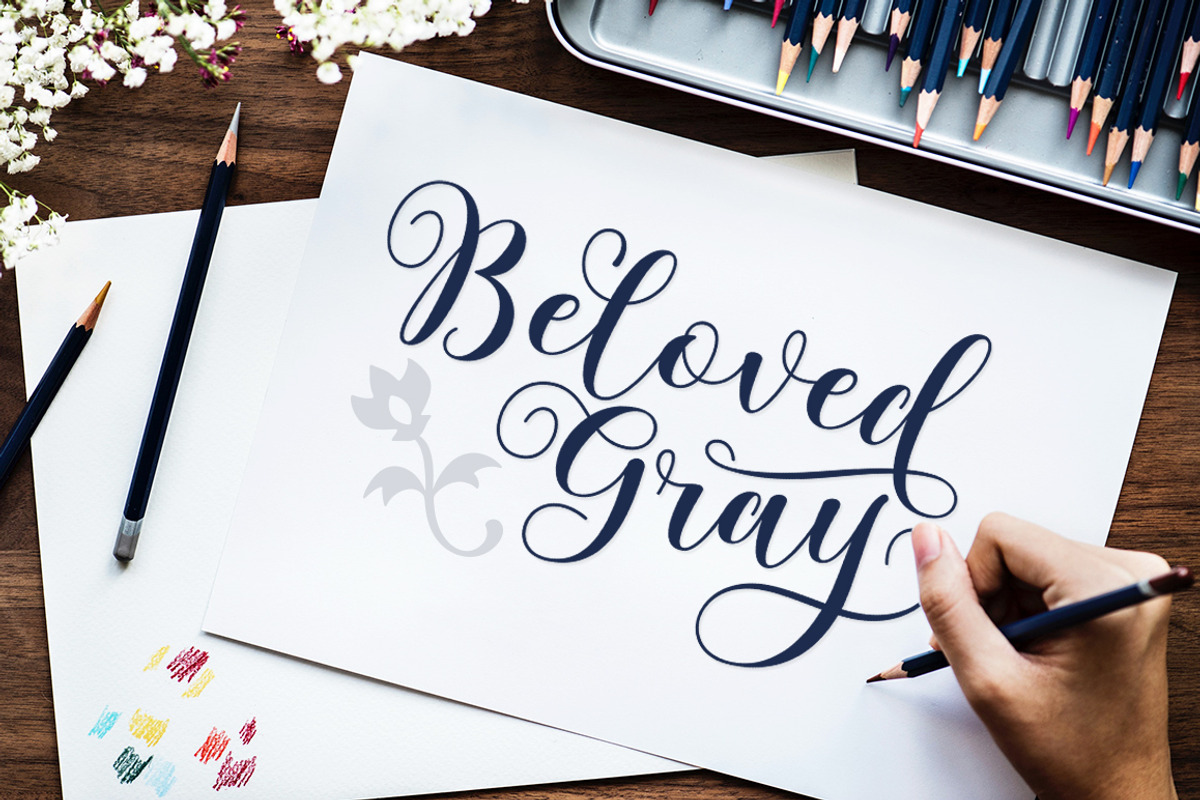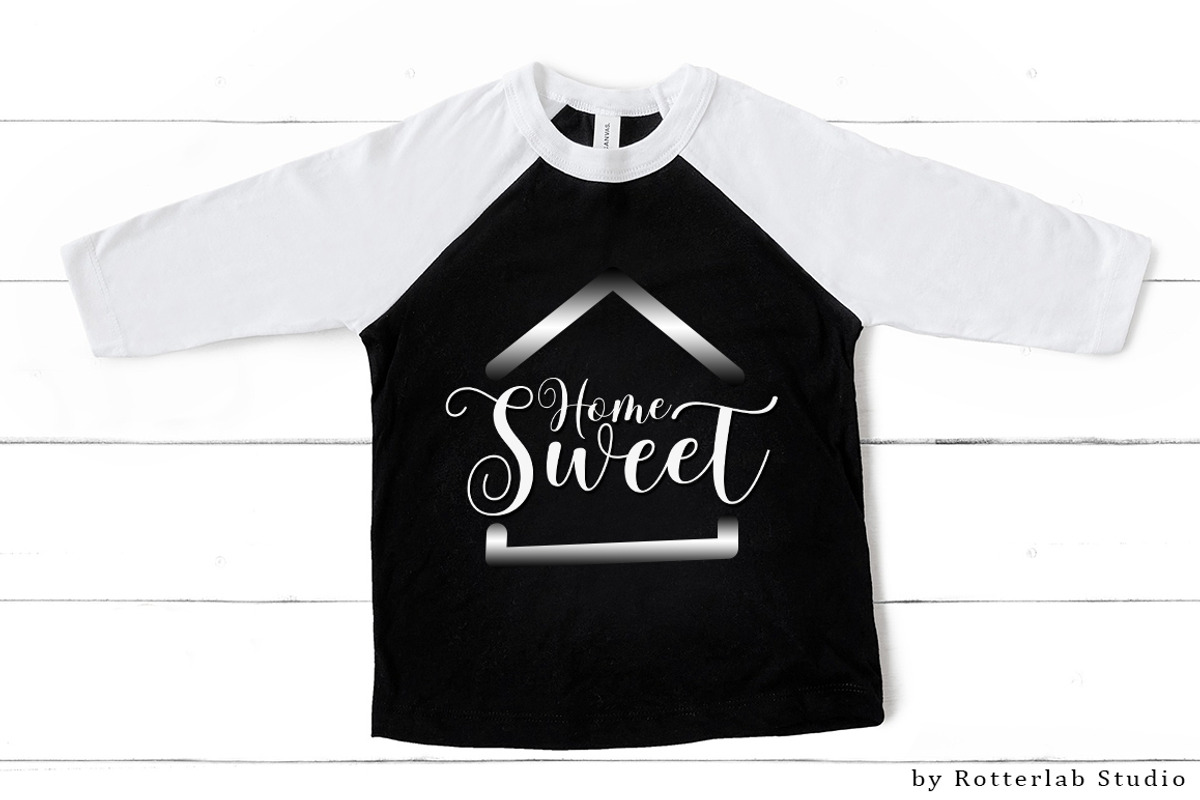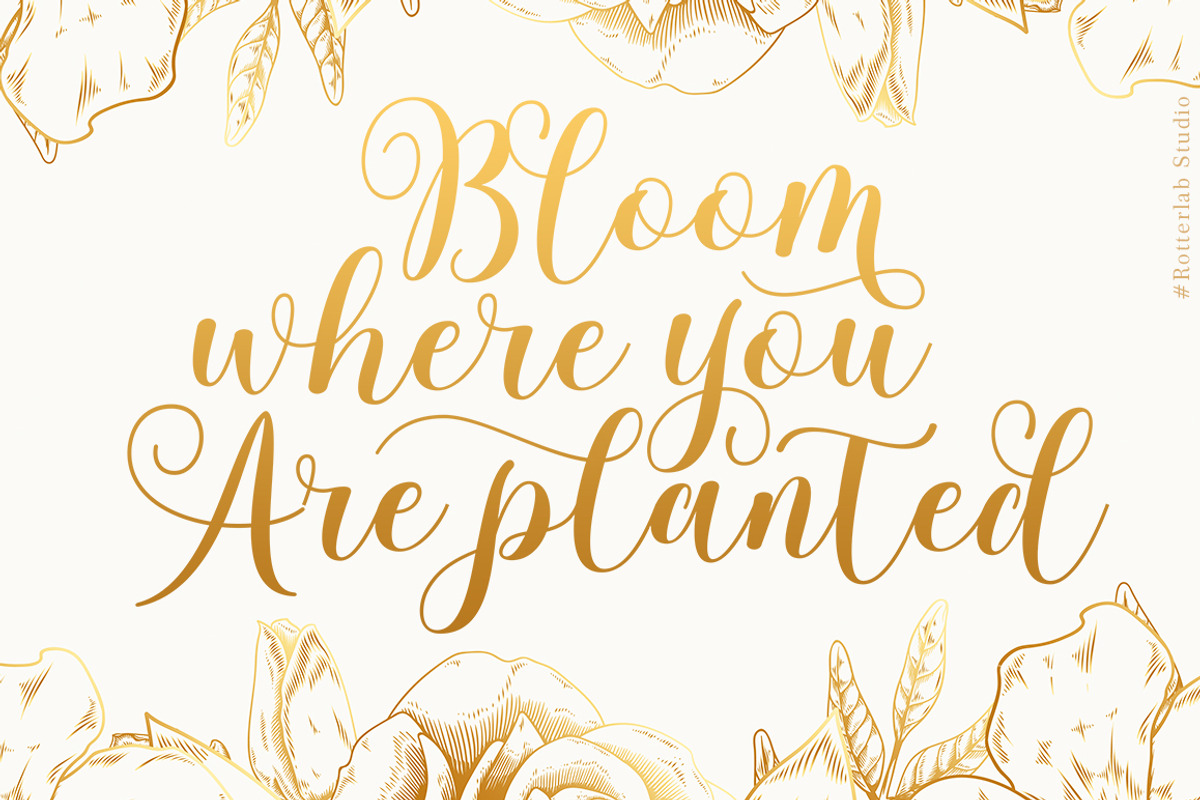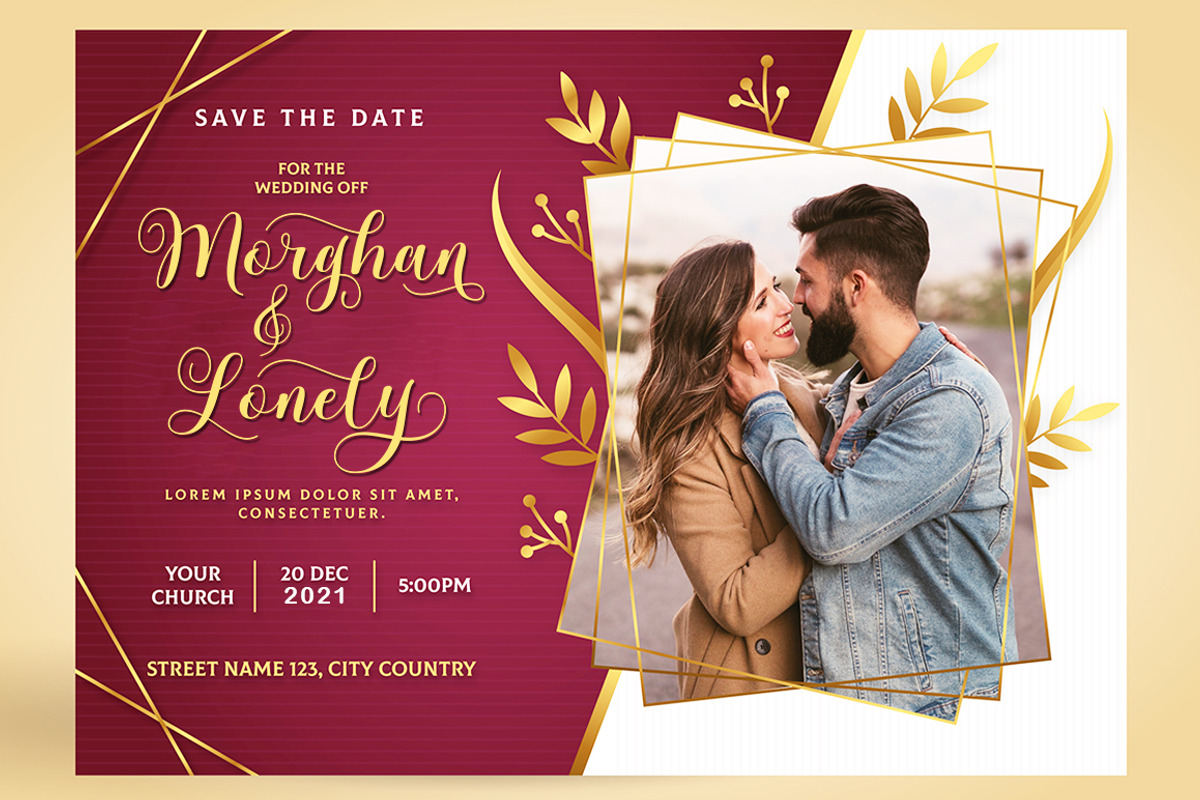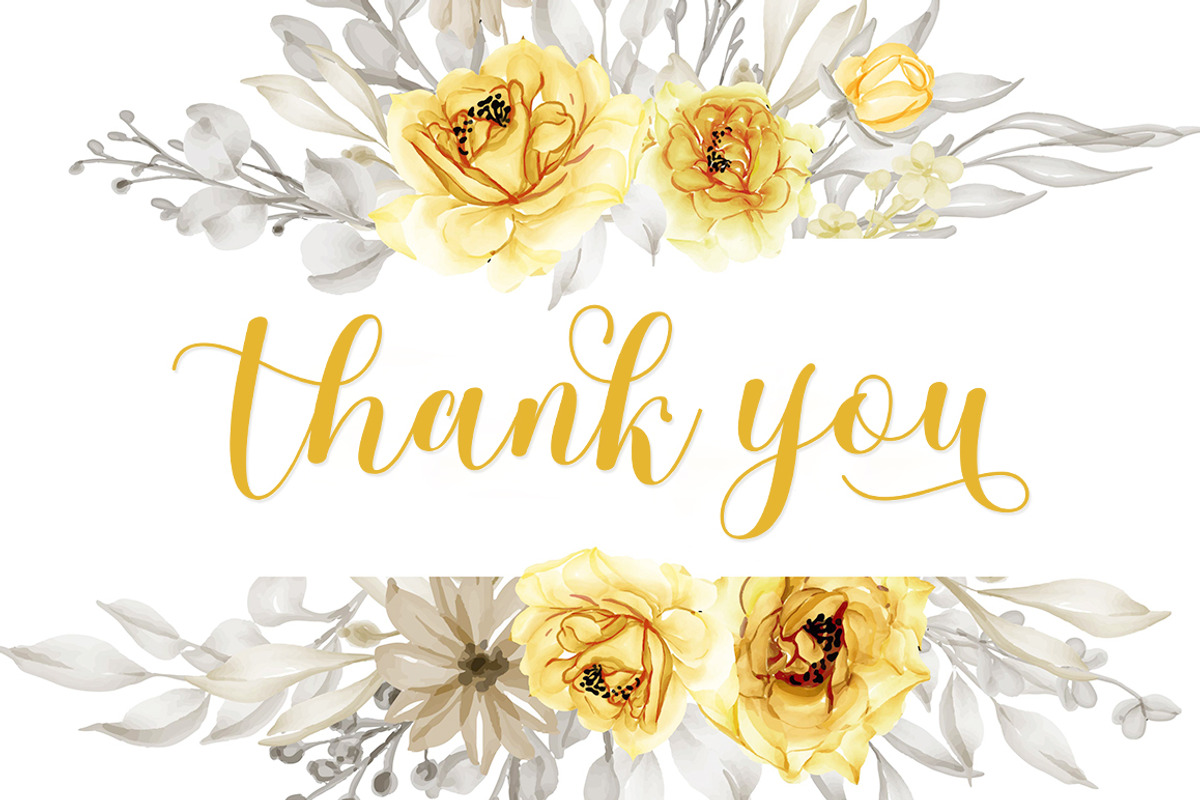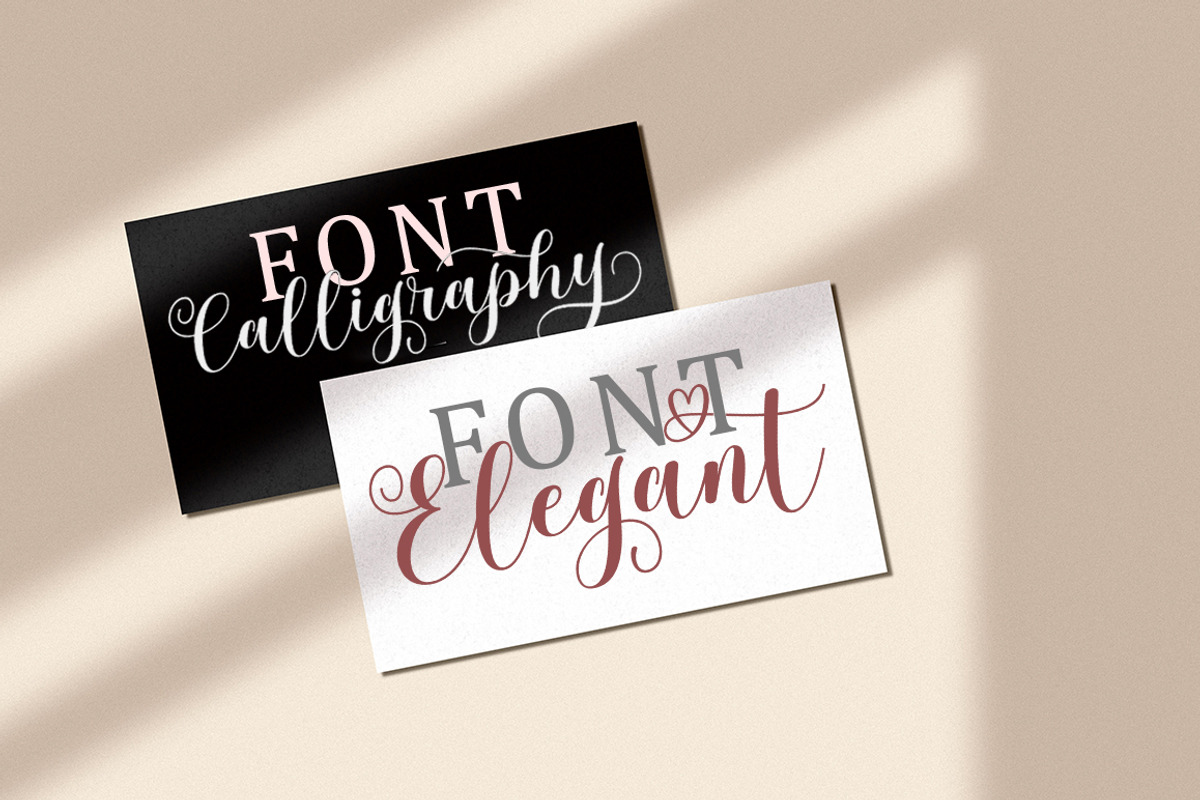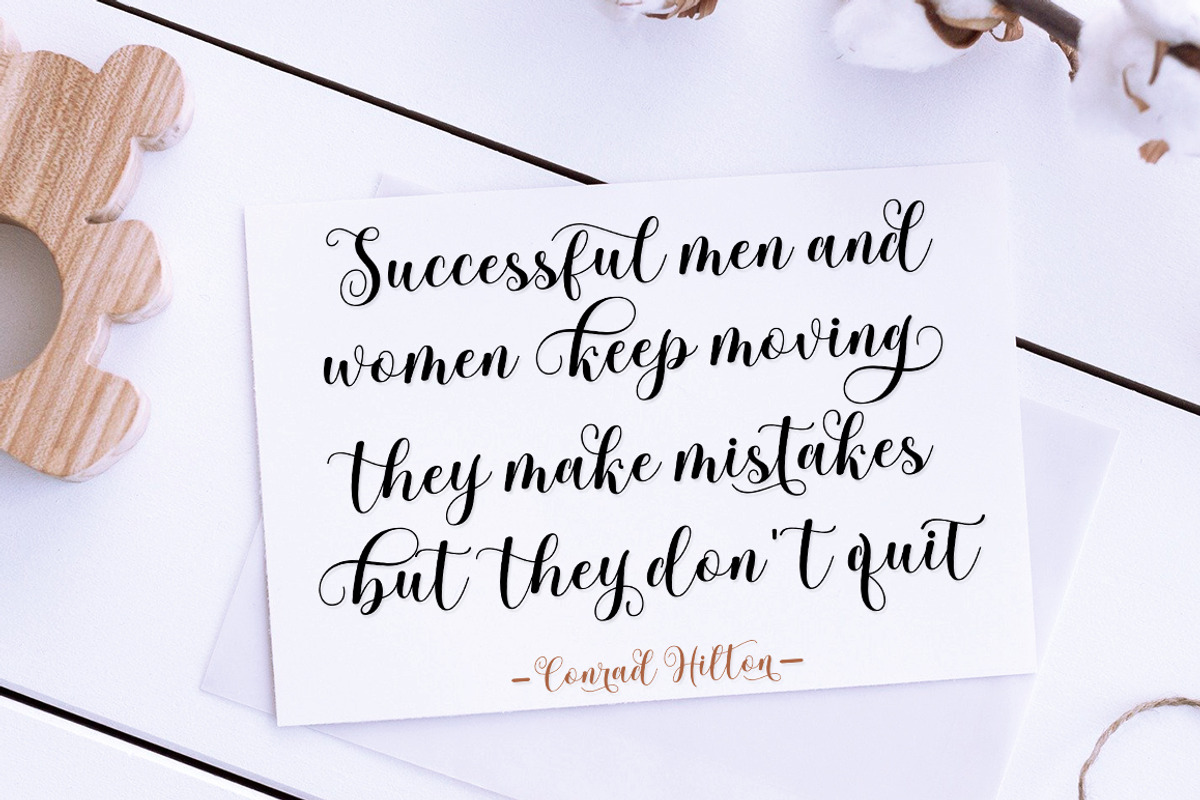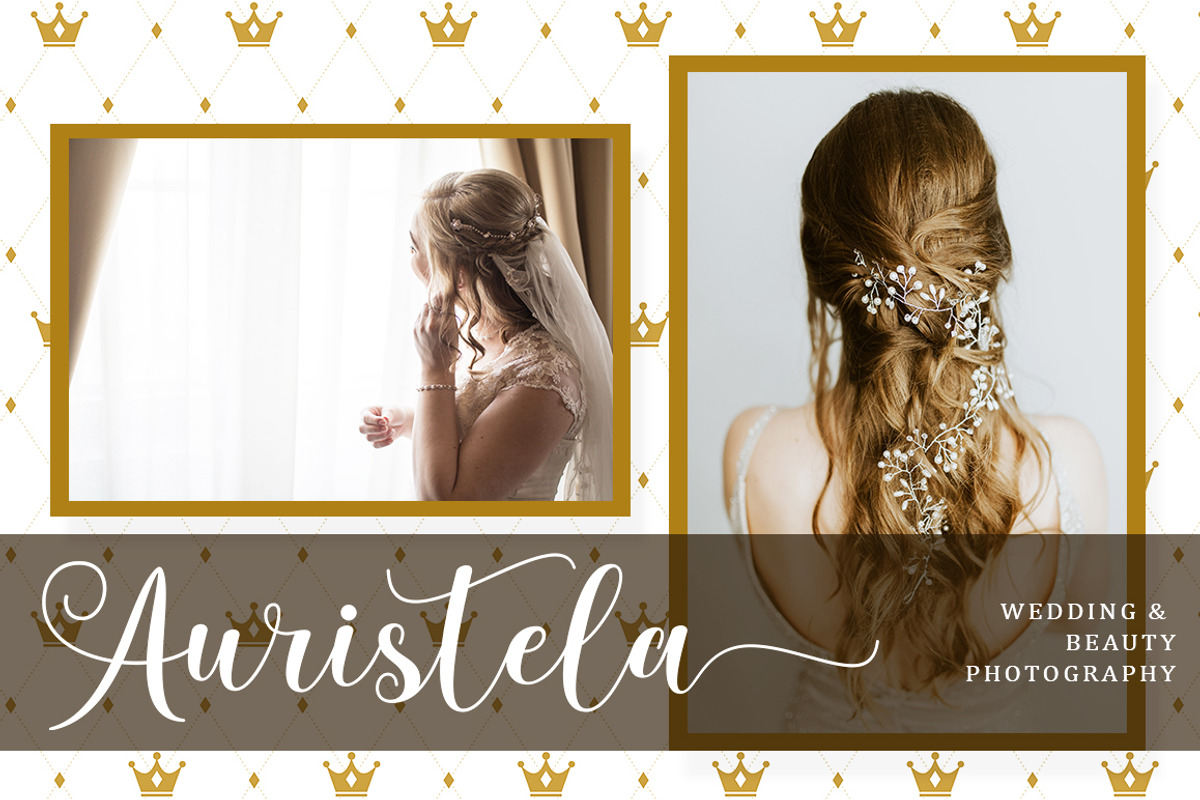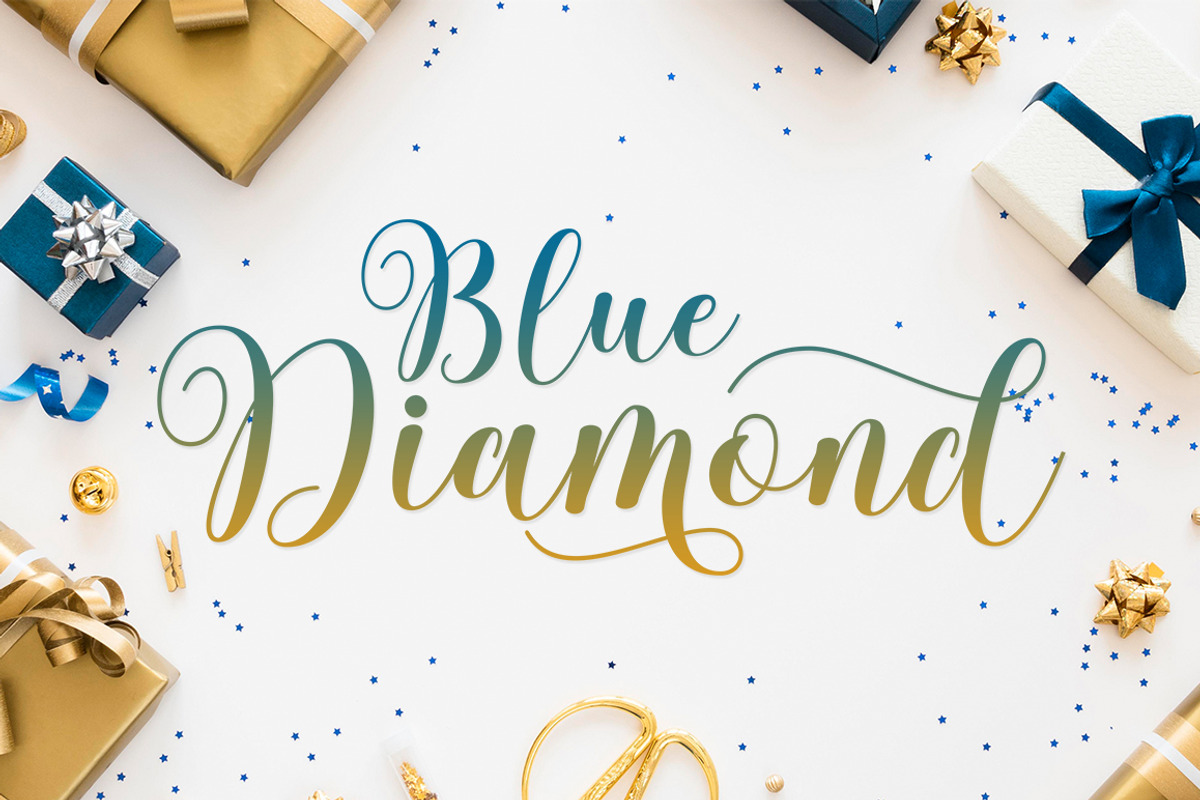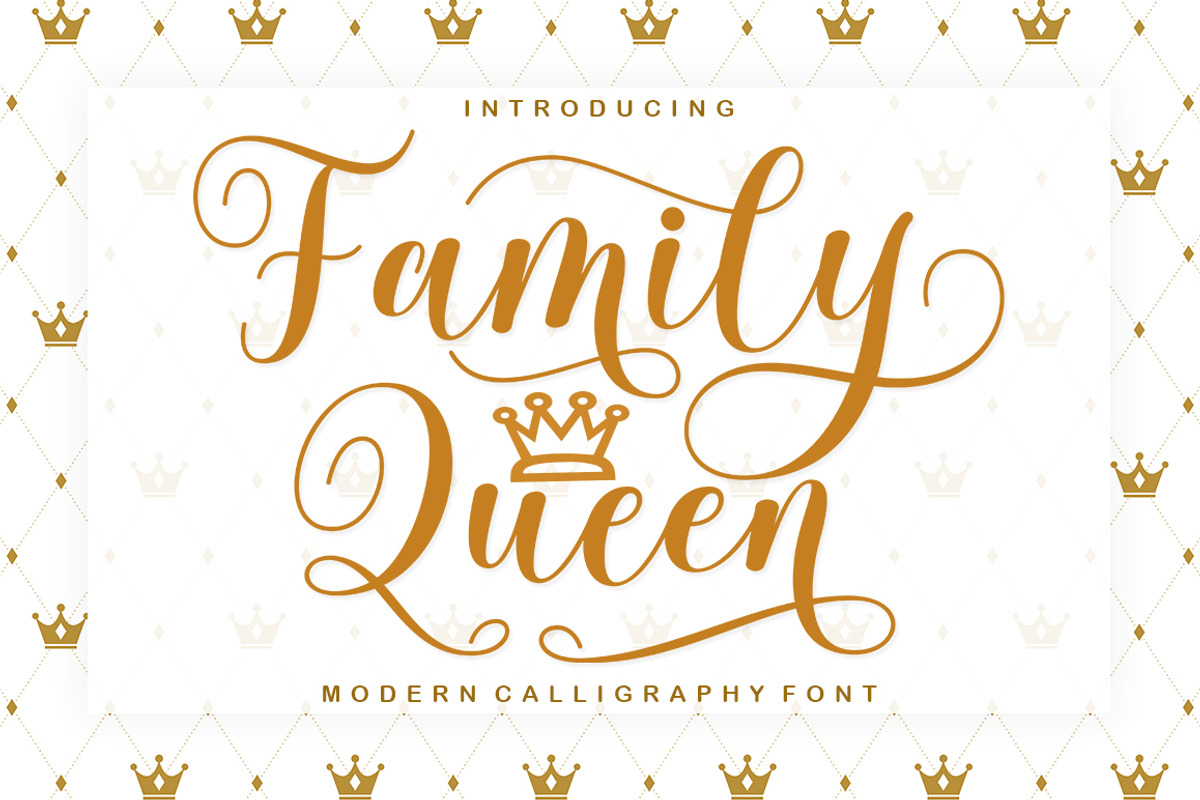
Family Queen
Family Queen is a beautiful script font with many alternative styles, this font looks natural, elegant and perfect for any extraordinary project.
Family Queen is suitable for various products such as invitations, product packaging, product design, crafter, labels, photography, watermarks, logos & branding.